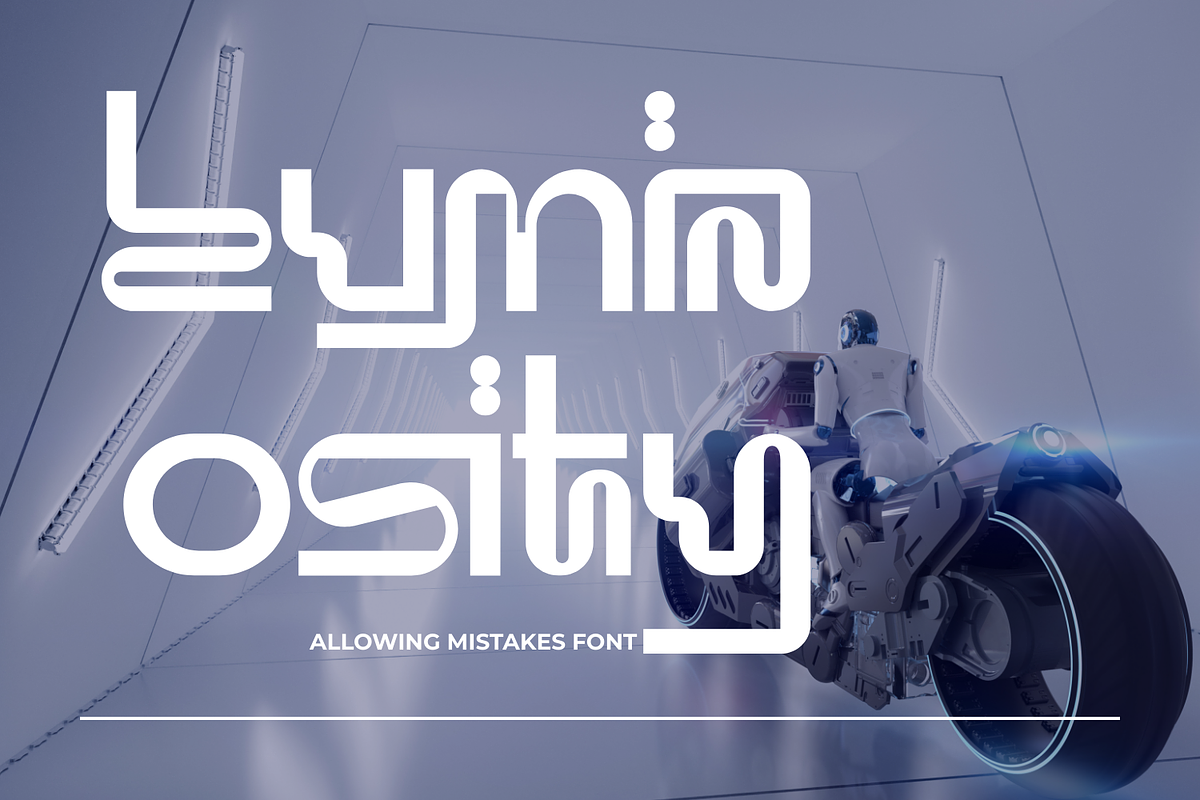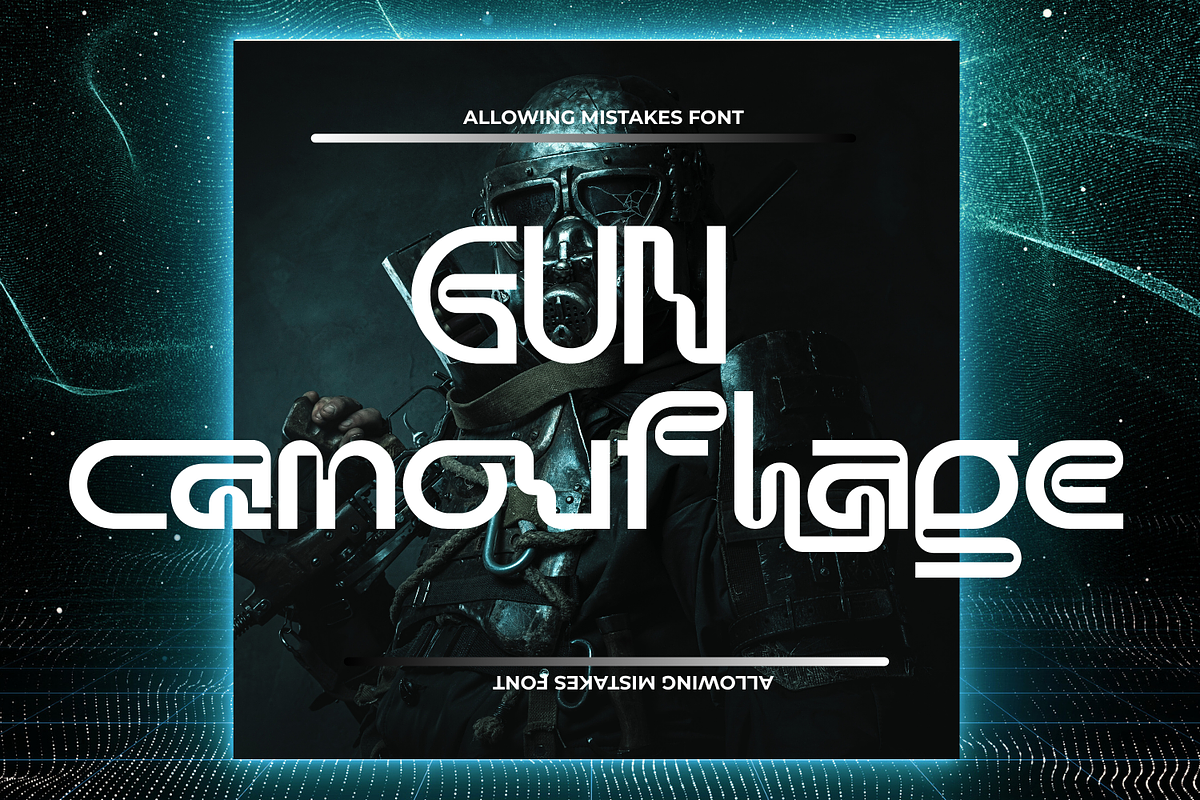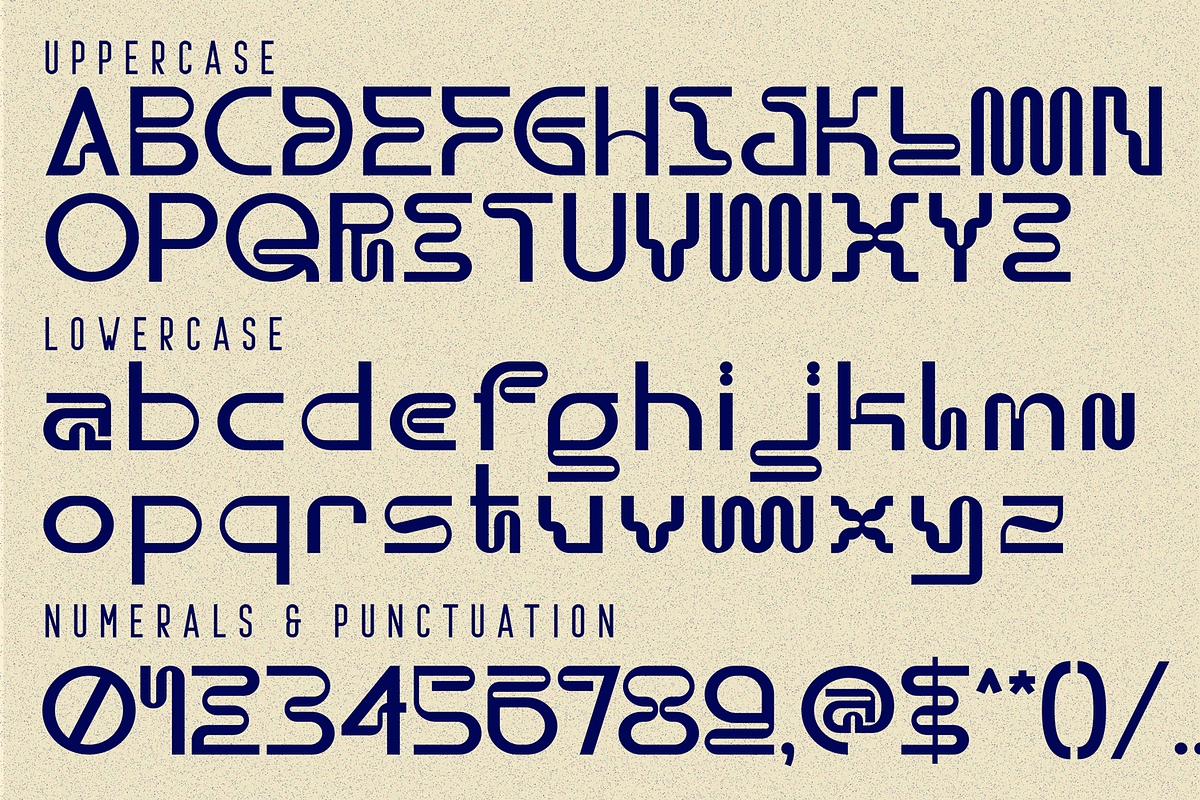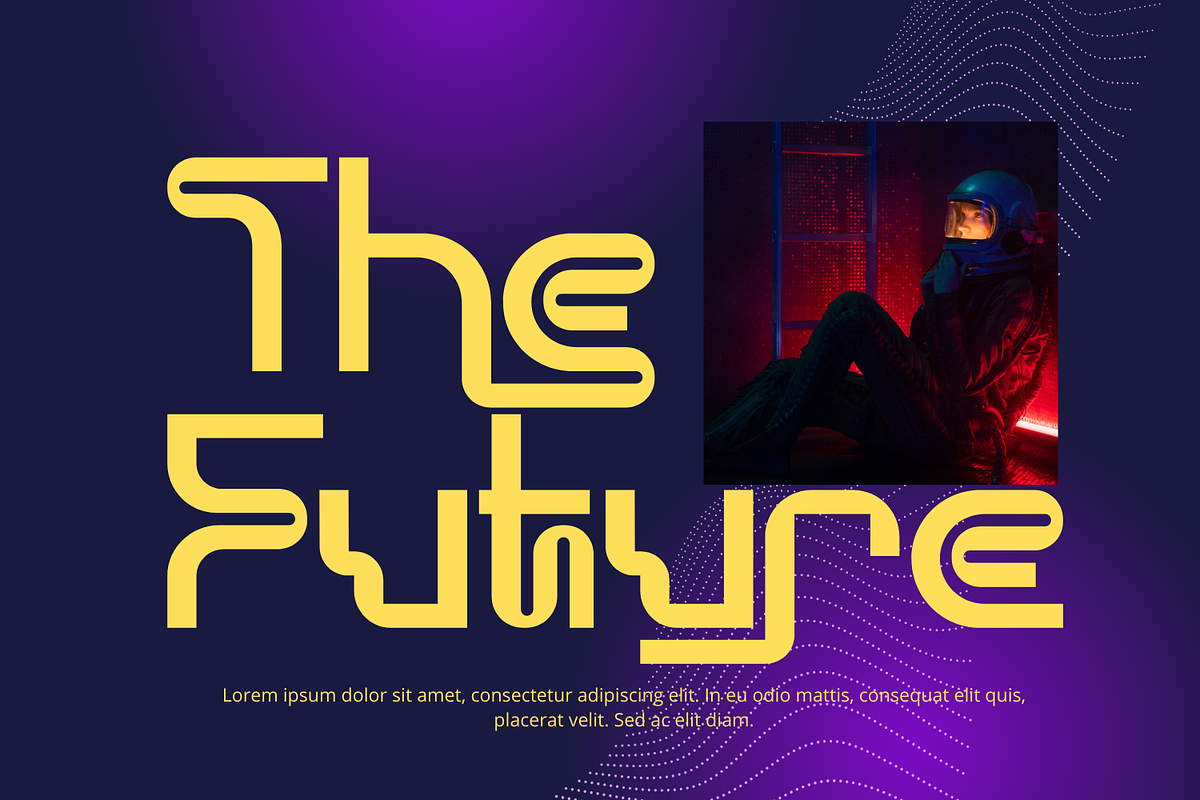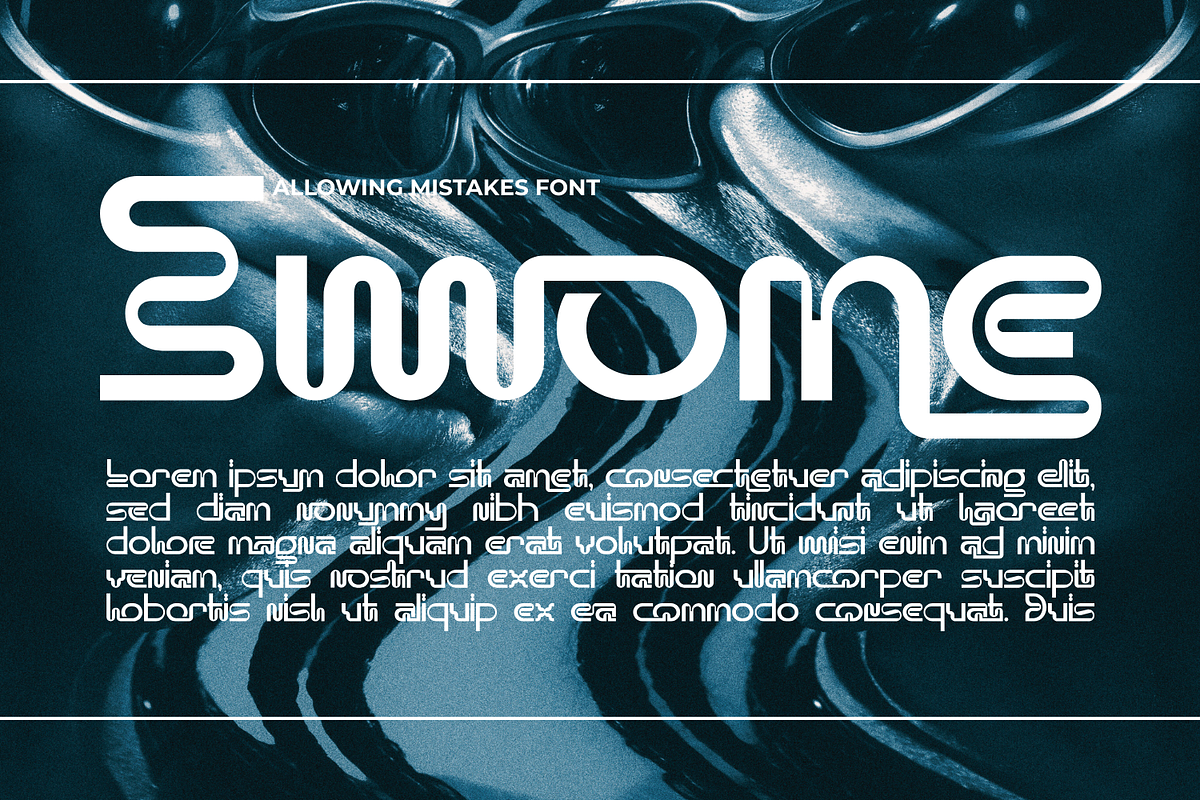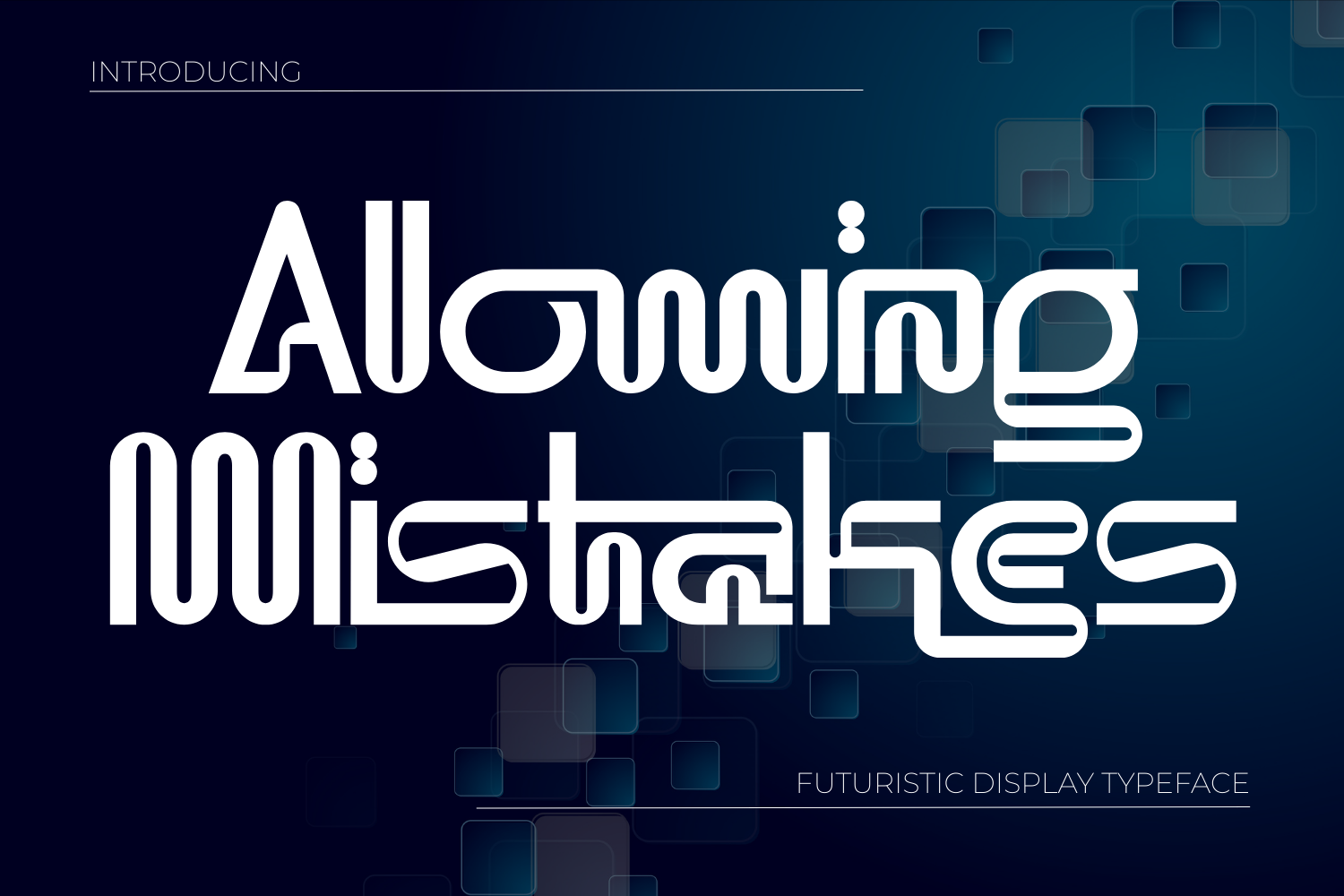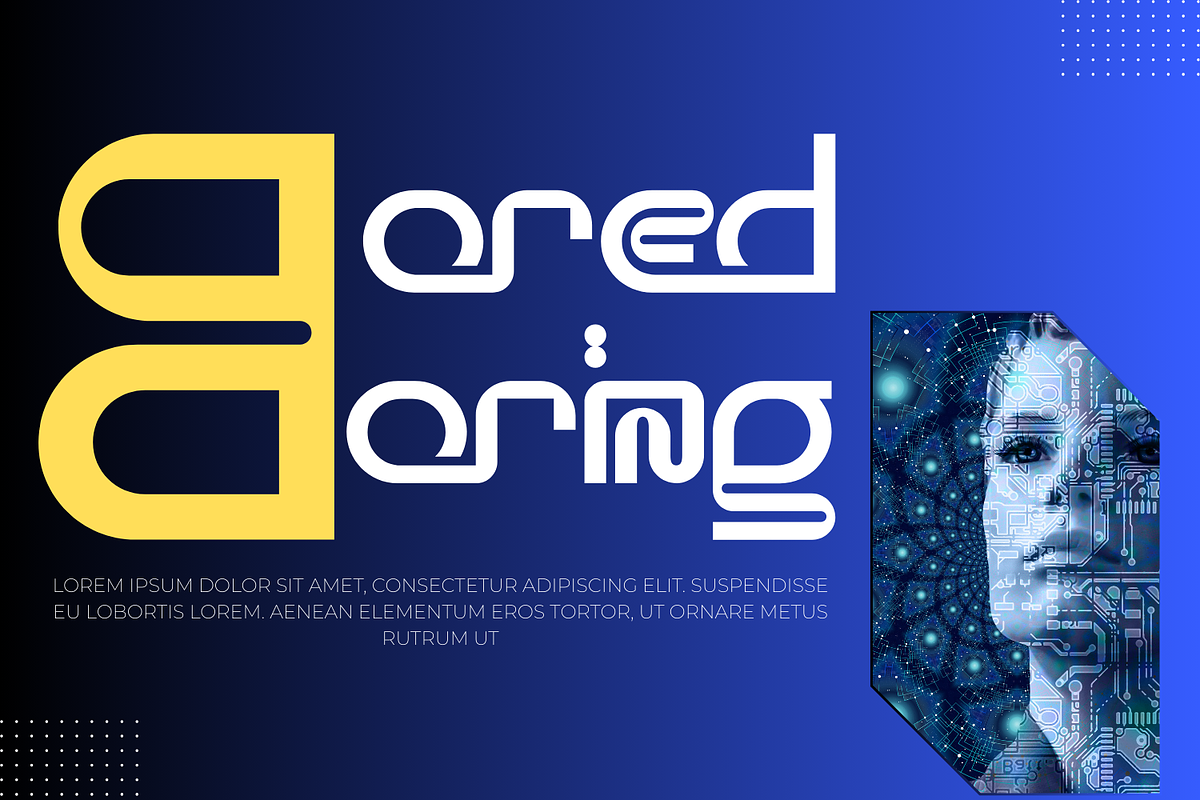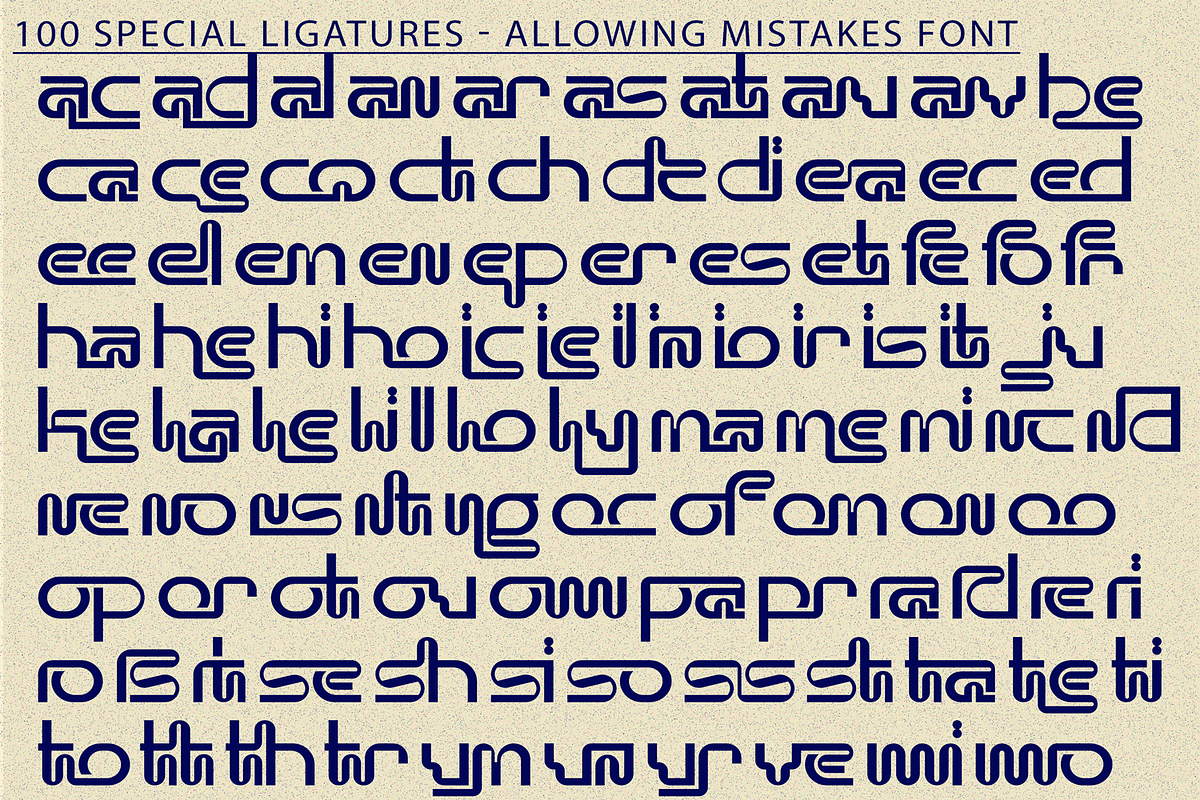
Allowing Mistakes - Futuristic Font
Allowing Mistakes - Futuristic Font is a modern futuristic sans serif typeface designed with smooth rounded geometry and clean digital forms. Inspired by technology, innovation, and contemporary interface design, this font delivers a sleek and forward-thinking visual identity. Featuring both Uppercase and Lowercase letters, approximately 100 custom special ligatures, complete Numerals & Punctuation, and extensive Accented characters, Allowing Mistakes allows designers to create unique, connected typographic compositions. Its consistent stroke weight, rounded terminals, and creative ligature system make it ideal for tech branding, AI projects, startups, sci-fi posters, gaming titles, and modern UI-focused designs.
🔤Features:
- Uppercase & Lowercase Letters
- Around 100 Special Ligatures & Alternates
- Accented Characters for multilingual support
🔤About 100 ligatures combined with Stylistic Alternates Font:
ac ad al an ar as at au av be ca ce ch co ct de di ea ec ed ee el em en ep er es et fe fo fr ge ha he hi ho ie ic il in io ir is it ju ke la le li ll lo ly ma me mi nc nd ne ng no nt ns oc of om on oo op or ot ou ow pa pr ra rd re ri ro rs rt se sh si so ss st ta te th ti to tr tt um un ur ve wi wo